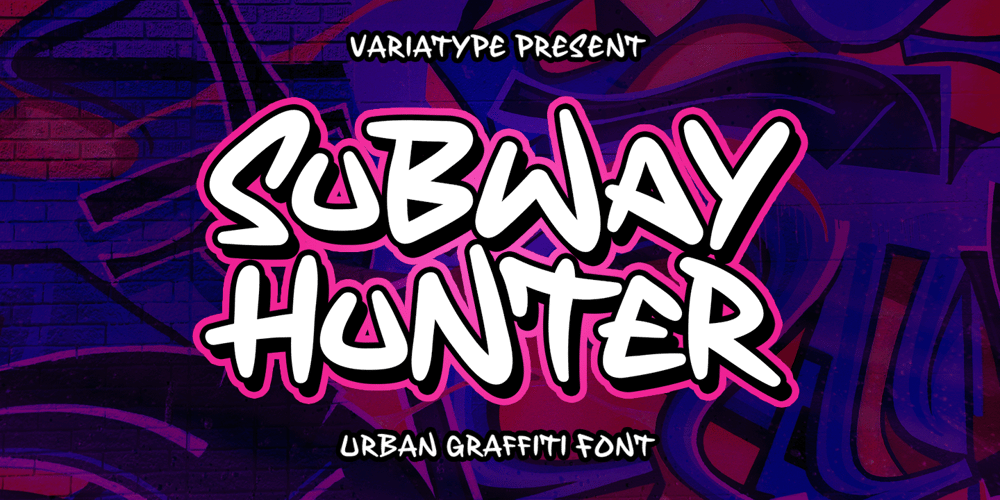
Subway Hunter Font Family was designed by Mukhlis Muhammad and published by Variatype. Subway Hunter contains 1 styles and family package options. Waltowns is a dynamic and expressive typeface that captures the essence of street art with its bold and energetic design. The letters are characterized by organic shapes, reminiscent of marker strokes on urban surfaces. The font exudes a raw and brave vibe, reflecting the spirit of graffiti culture.The font includes a diverse set of characters, allowing for creative and eye-catching compositions. Whether you’re designing posters, album covers, or any other graphic project, Waltowns inject a sense of urban attitude and artistic edge. Its versatility makes it suitable for a wide range of applications, making your designs stand out in the crowd.Waltowns is not just a font; it’s a statement. It represents expression, the vibrancy of the streets, and the bold creativity that defines graffiti art. Use Waltowns to bring a touch of urban authenticity to your design projects and let your creativity run wild on the walls of the digital world.FONT FEATURES Additional Accents 68 Languages Kerning SOFTWARE RECOMMENDATION Adobe Photoshop CC 2020 or later Adobe Illustrator CC 2020 or later